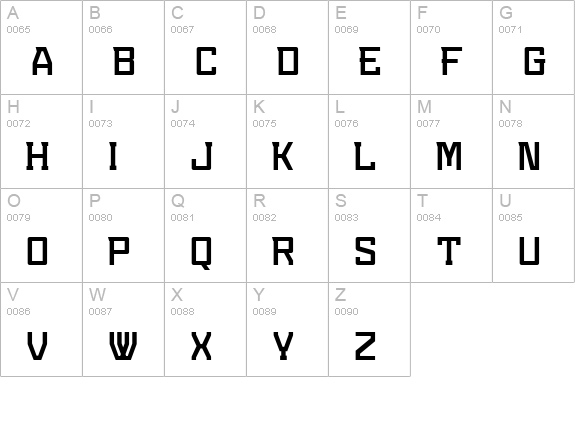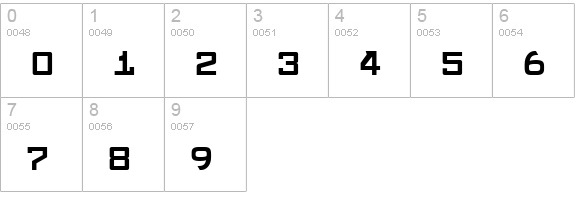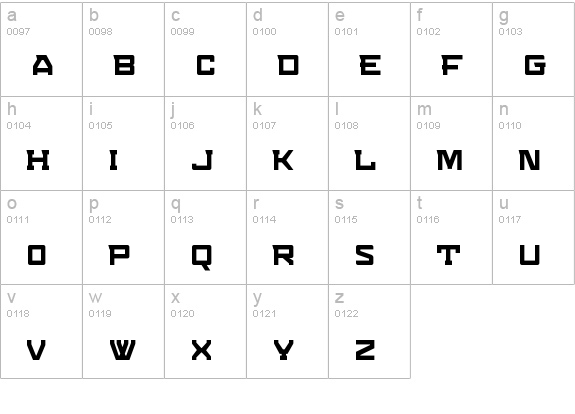
Konvexist-SmallCaps Font Details
Konvexist-SmallCaps font is a modern and stylish typeface that exudes sophistication and elegance. With its unique small caps style, this font is perfect for adding a touch of professionalism to any design project. The clean lines and balanced letterforms of Konvexist-SmallCaps make it versatile and easy to read, making it suitable for a wide range of applications. What's even better is that Konvexist-SmallCaps font is available for free download at FontsMarket.com. This means that you can easily access and use this beautiful font in your projects without any cost. Whether you are working on branding, graphic design, or any other creative endeavor, Konvexist-SmallCaps font is a fantastic addition to your font collection. Don't miss out on this opportunity to enhance your designs with this amazing font - download it for free today at FontsMarket.com!